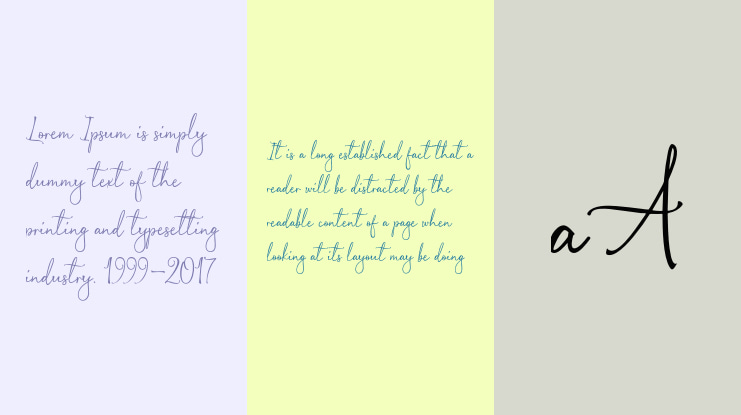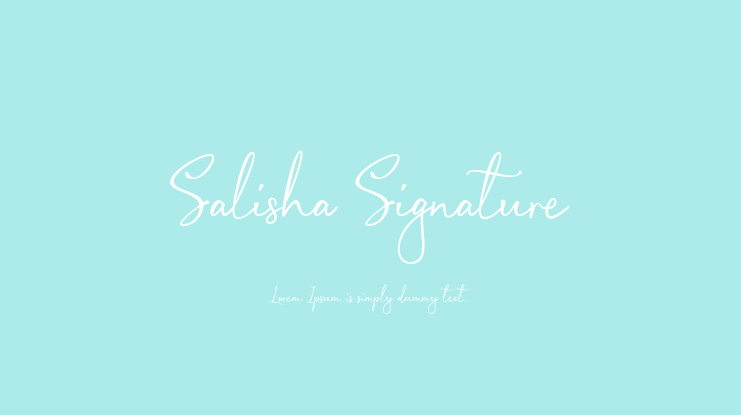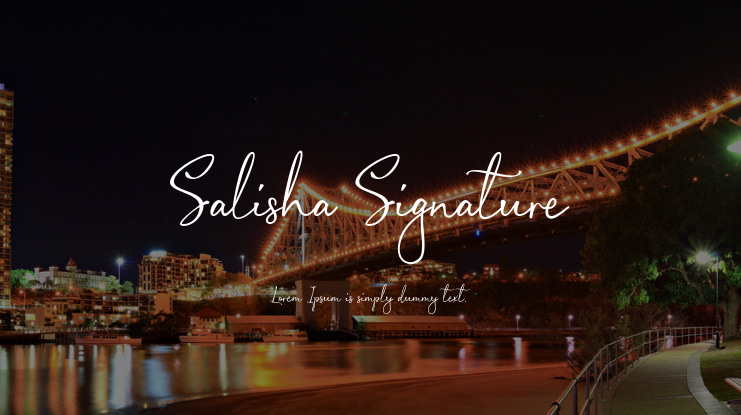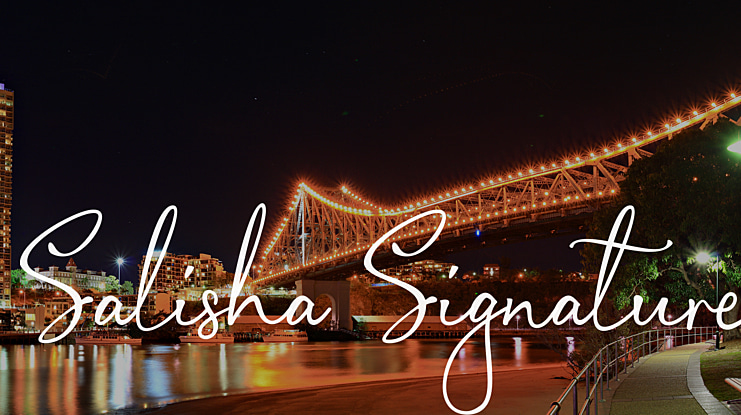
Salisha Signature Font
RIZKI ANDIKA
Salisha is a unique, elegant and modern handwriting font. that looks like a signature, this font is intentionally made with unique and alternating ligatures. This style of hand display makes it perfect for use in all your design projects whether it's logo, label, packaging design, blog title, poster, wedding designs, social media posts, Instagram design, etc.